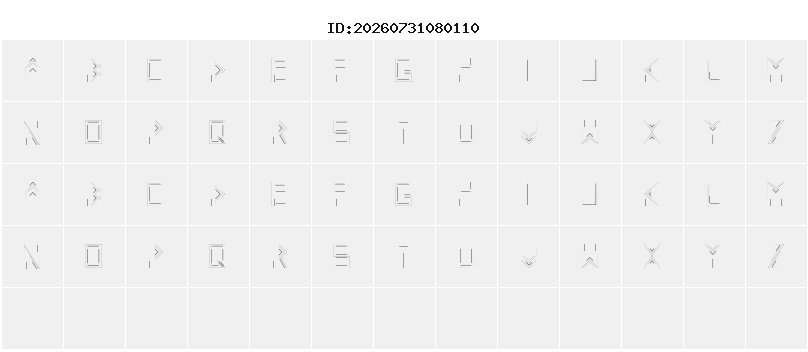
Linecap Preview
• Font Name: Linecap
• Designer: Dane Nugent
About Linecap.ttf
Linecap.ttf is a modern, elegant sans-serif font designed for ultimate readability and visual harmony. Perfect for branding, headlines, web design, and print materials.